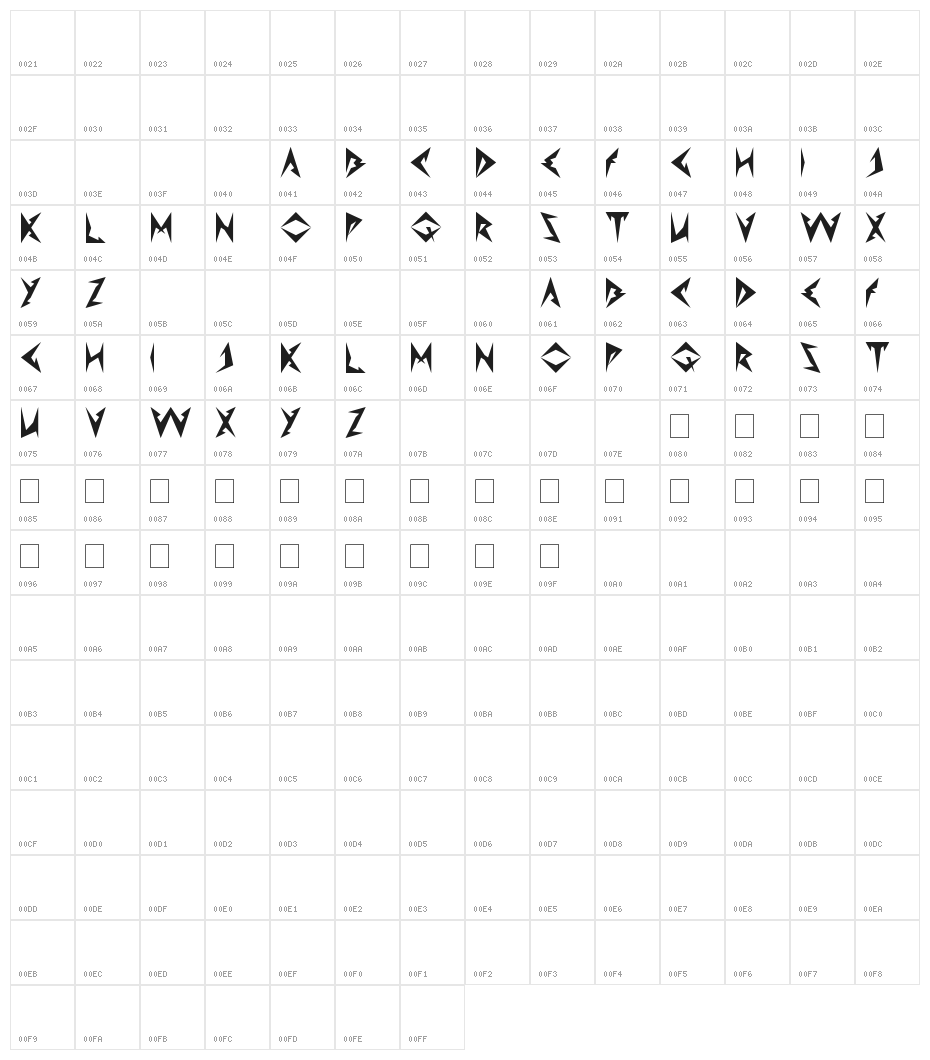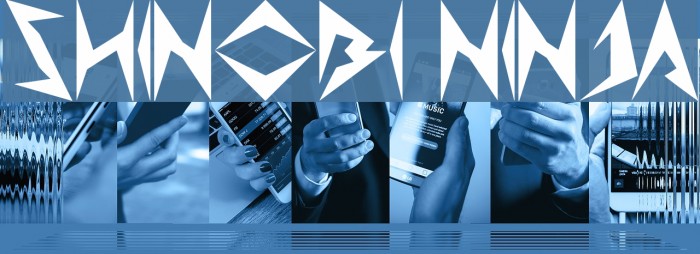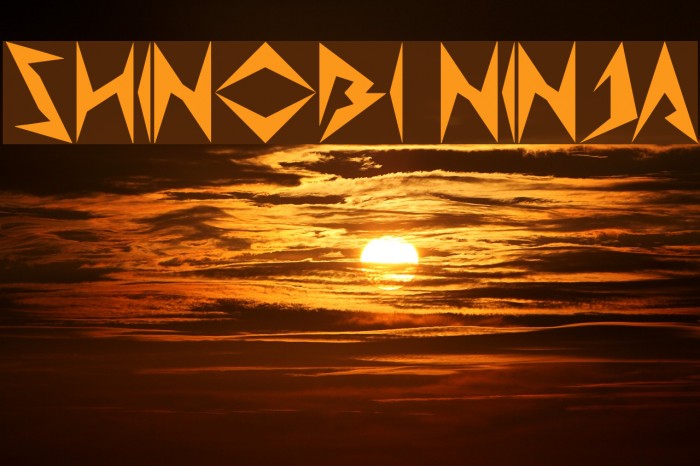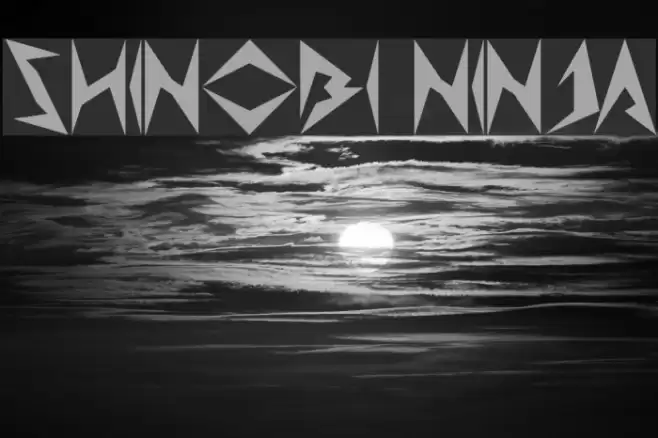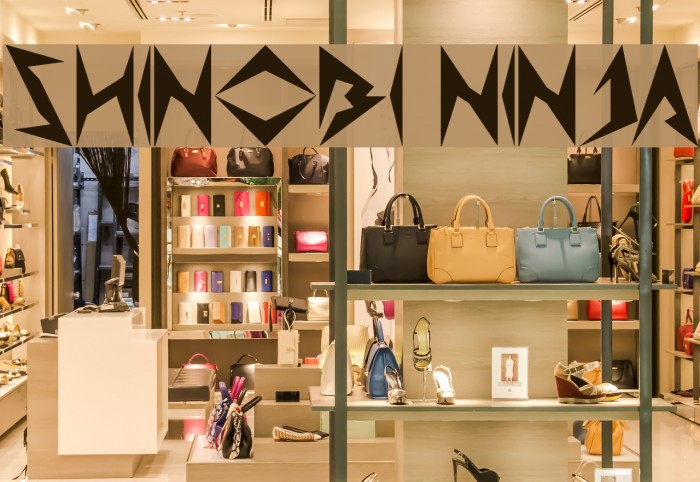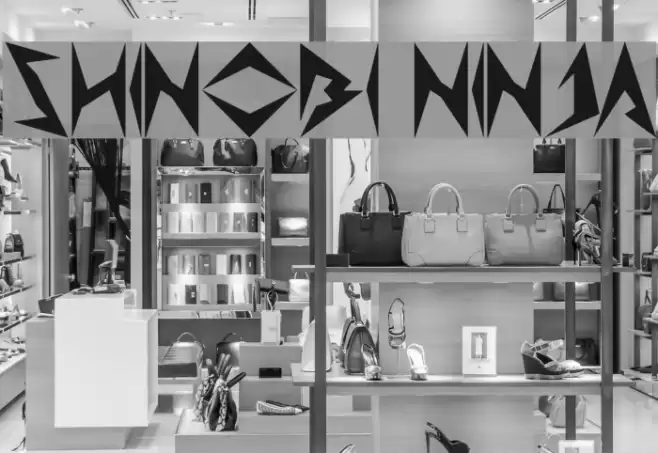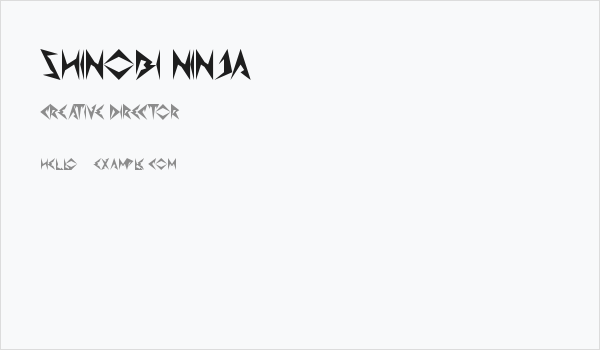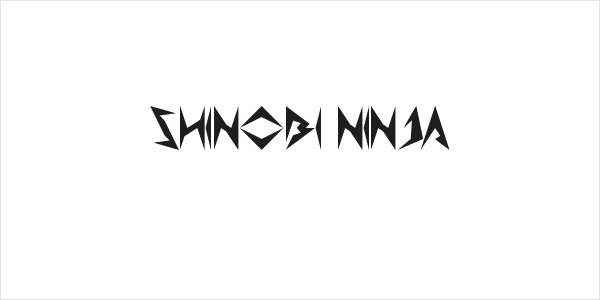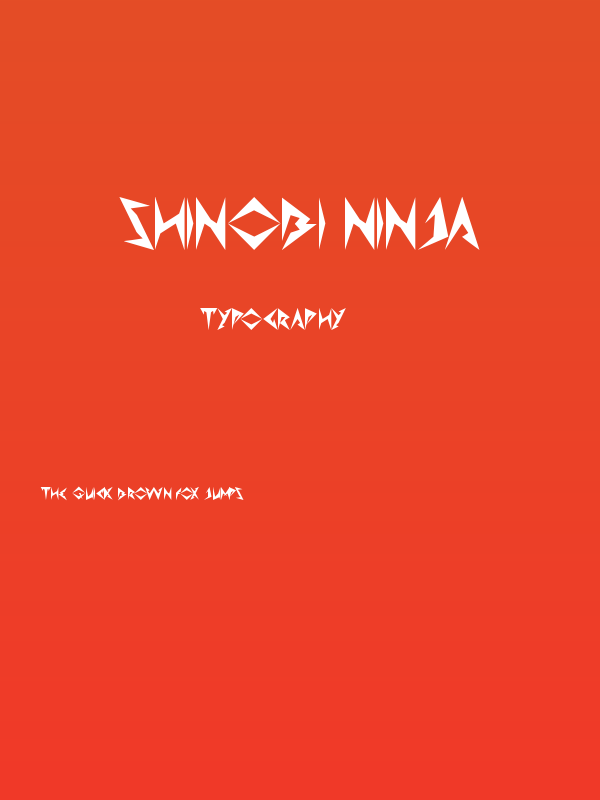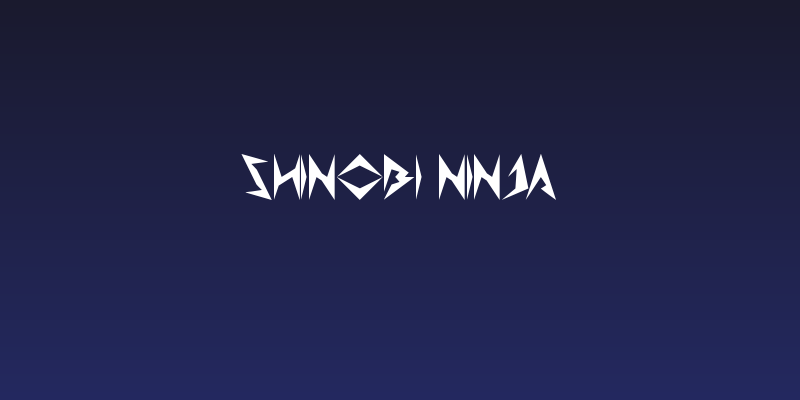
Shinobi Ninja Font
Shinobi Ninja Description
This font features a bold, angular design with sharp edges and a dynamic, energetic style. The characters are highly stylized, resembling jagged, geometric shapes that convey a sense of movement and intensity. The uppercase and lowercase letters maintain a consistent aesthetic, with each character exhibiting a unique, edgy form. The font's aggressive and modern appearance makes it stand out, perfect for projects that require a strong visual impact. Its distinctiveness is further enhanced by the consistent use of sharp angles and pointed edges throughout the character set.
| Overall Style | Modern, Edgy |
| Proposed Projects | Ideal for music album covers, video game titles, action movie posters, and edgy branding materials. |